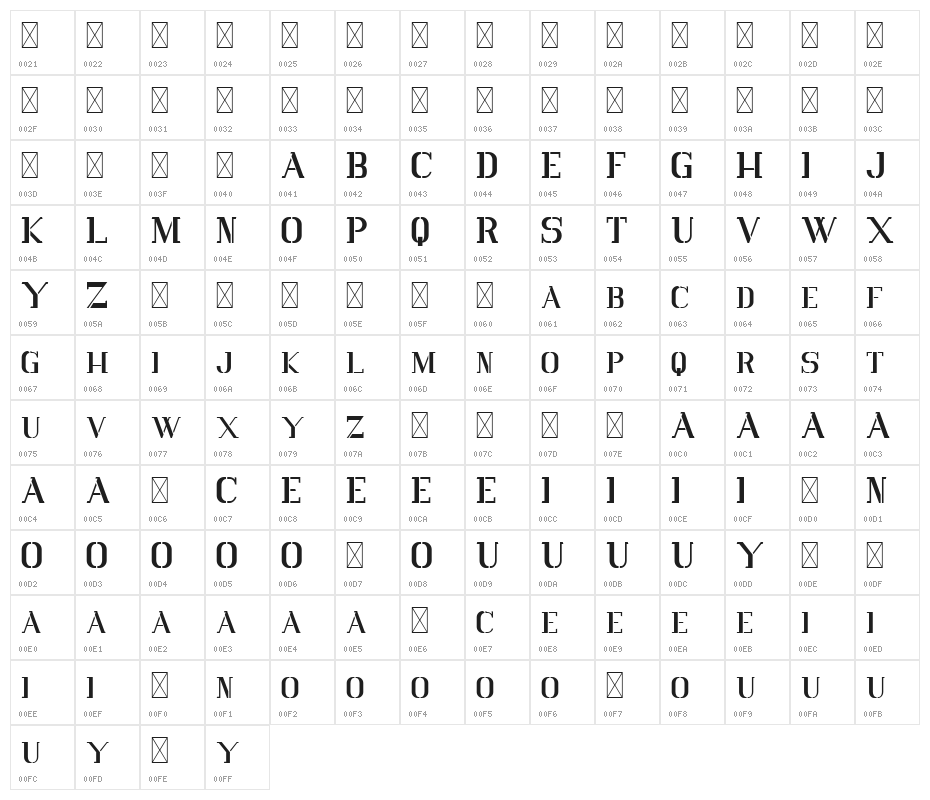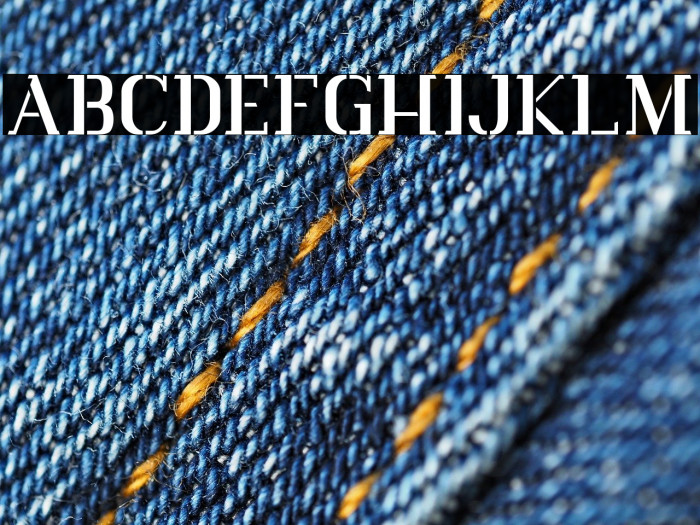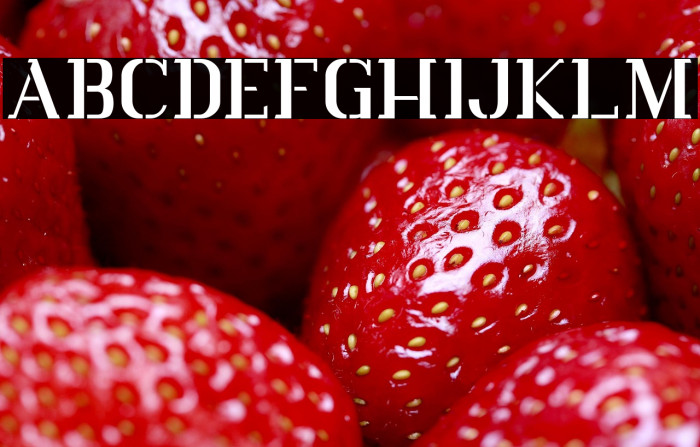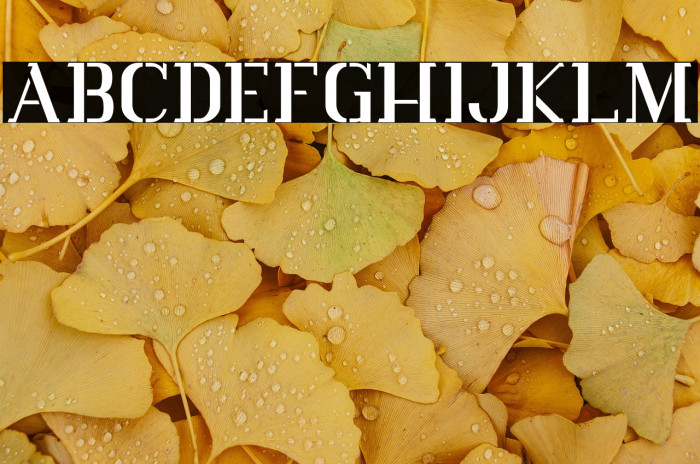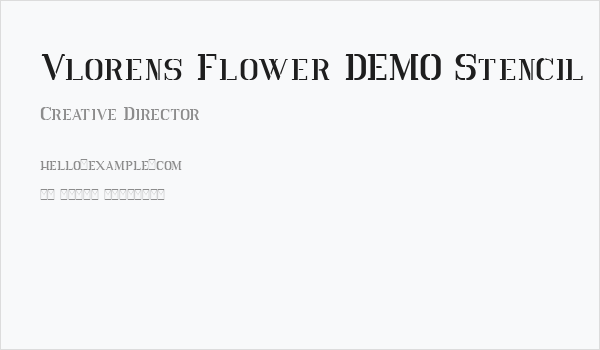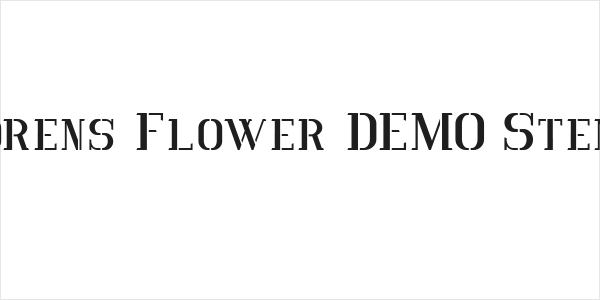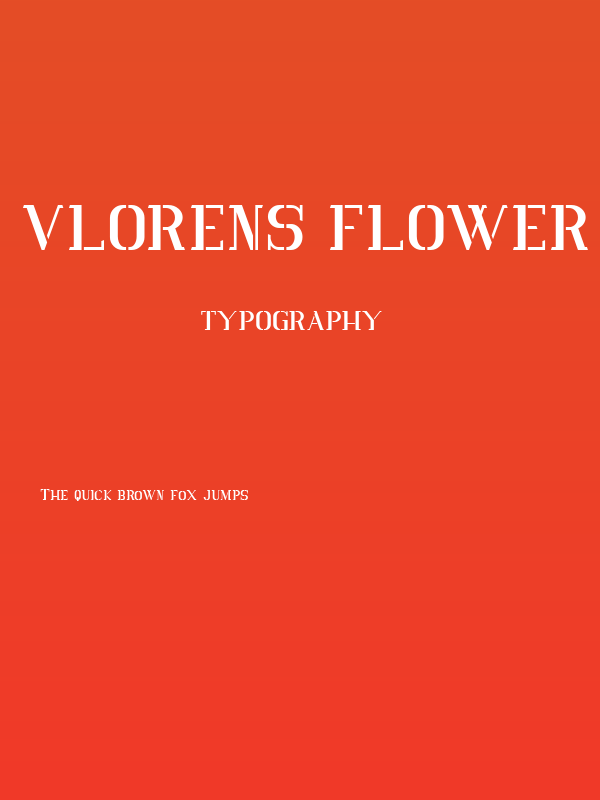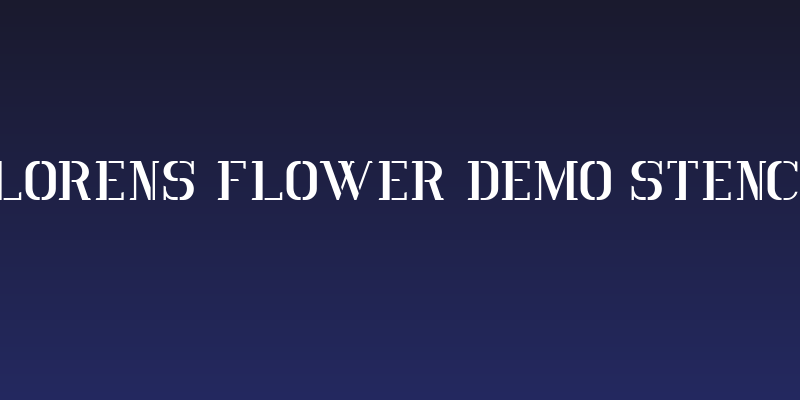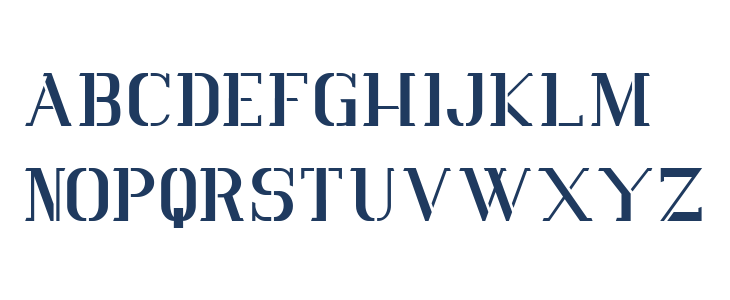
Vlorens Flower DEMO Stencil Font
Vlorens Flower DEMO Stencil Description
This font features a bold, stencil-like design with strong geometric shapes and high contrast between thick and thin strokes. The uppercase letters are characterized by their sharp angles and distinct cutouts, giving them a modern and industrial feel. The absence of lowercase letters and numerals suggests a focus on decorative or display purposes. The font's unique style is suitable for creating eye-catching headlines or logos that require a bold statement. Its stencil design allows for easy readability while maintaining a stylish and contemporary appearance.
| Proposed Projects | Ideal for use in branding, signage, posters, and any project requiring a modern, industrial look. |